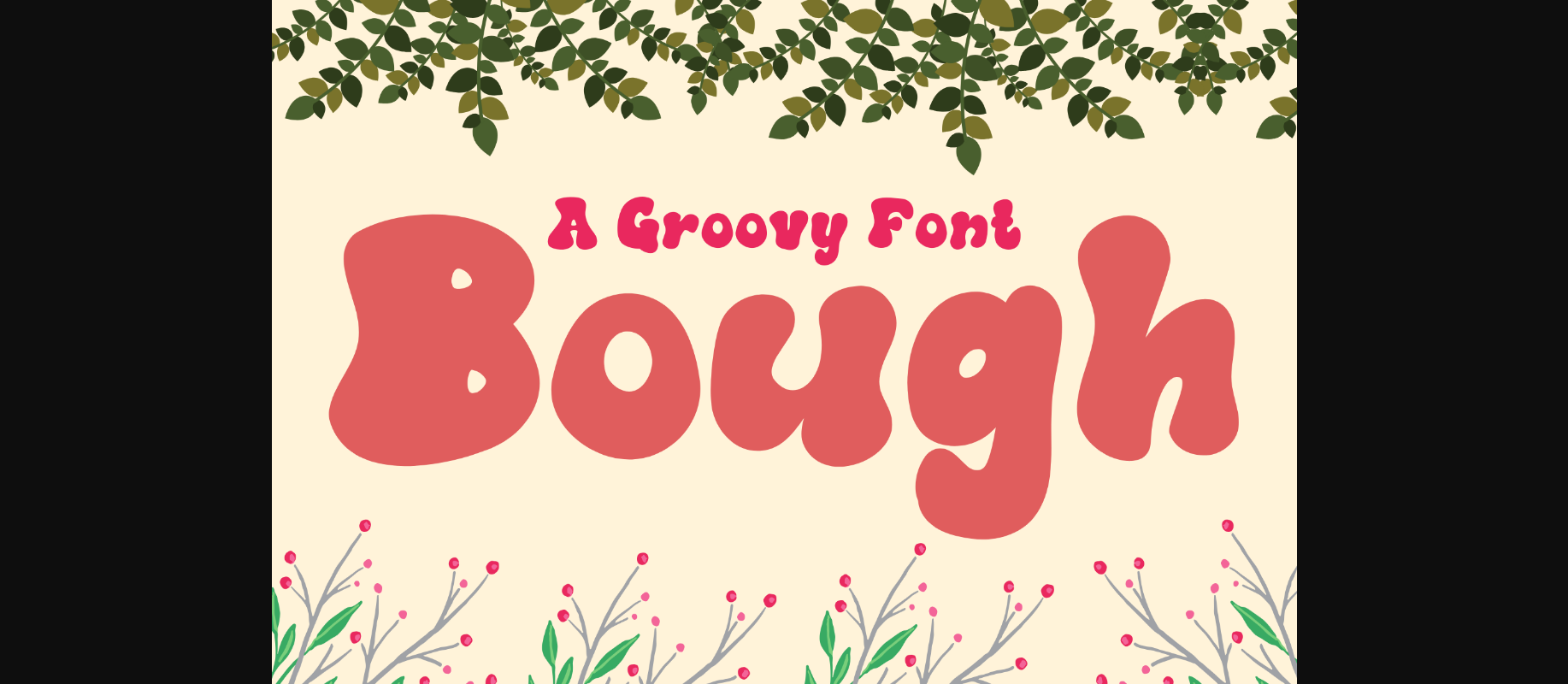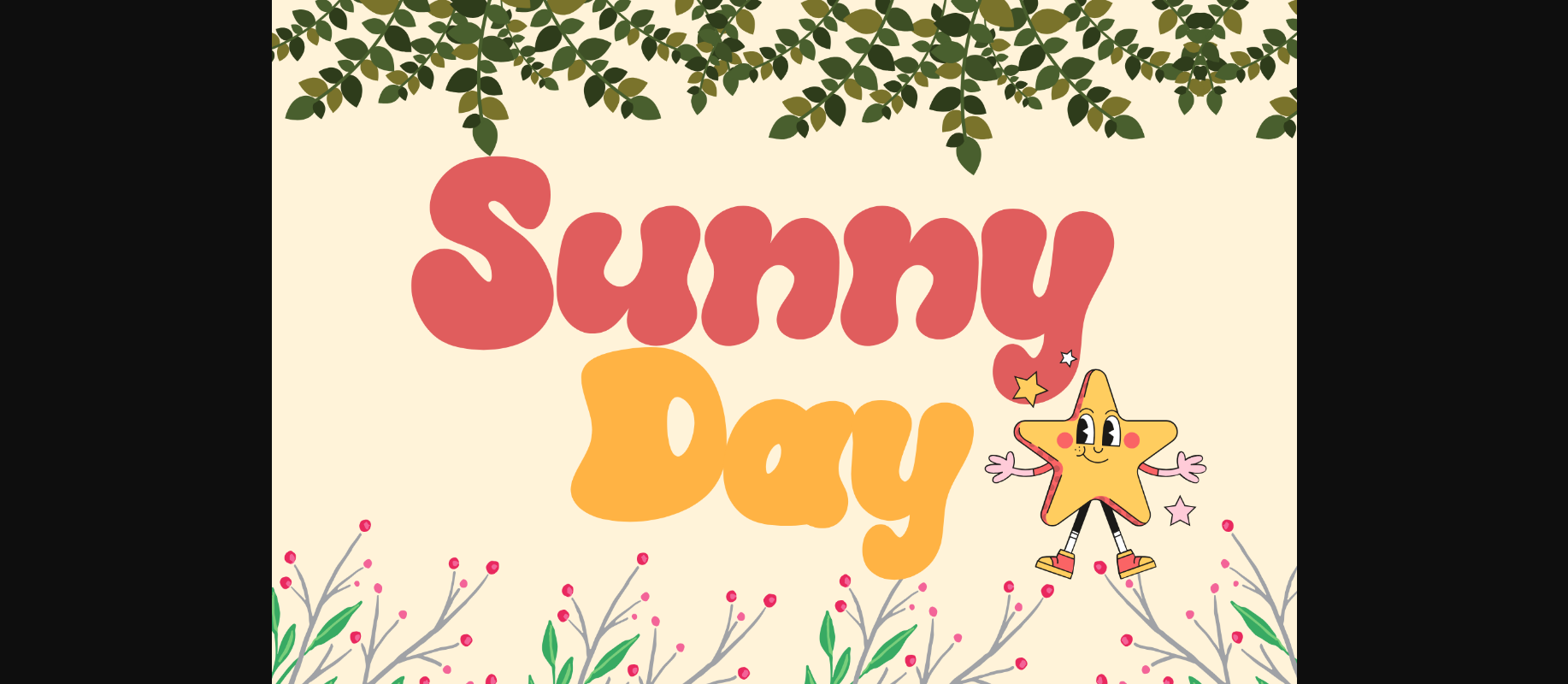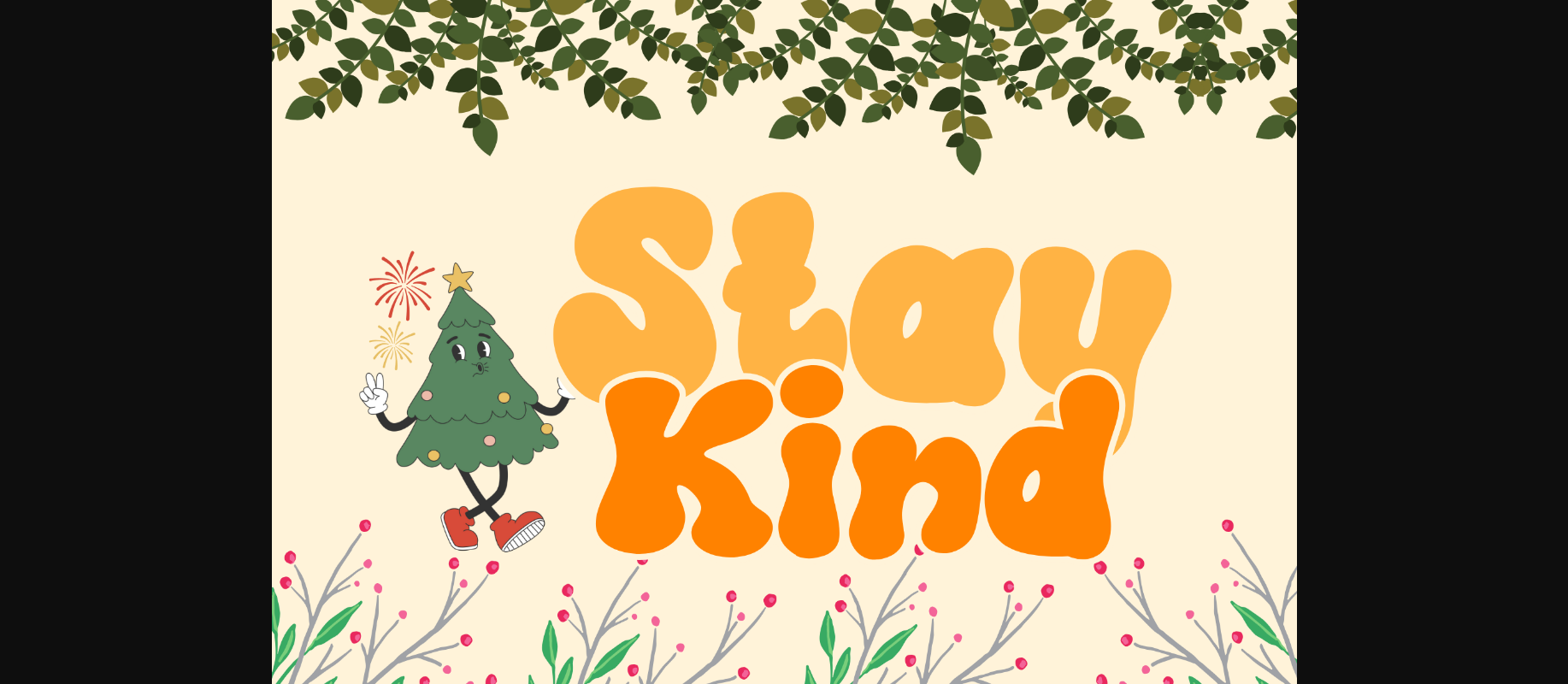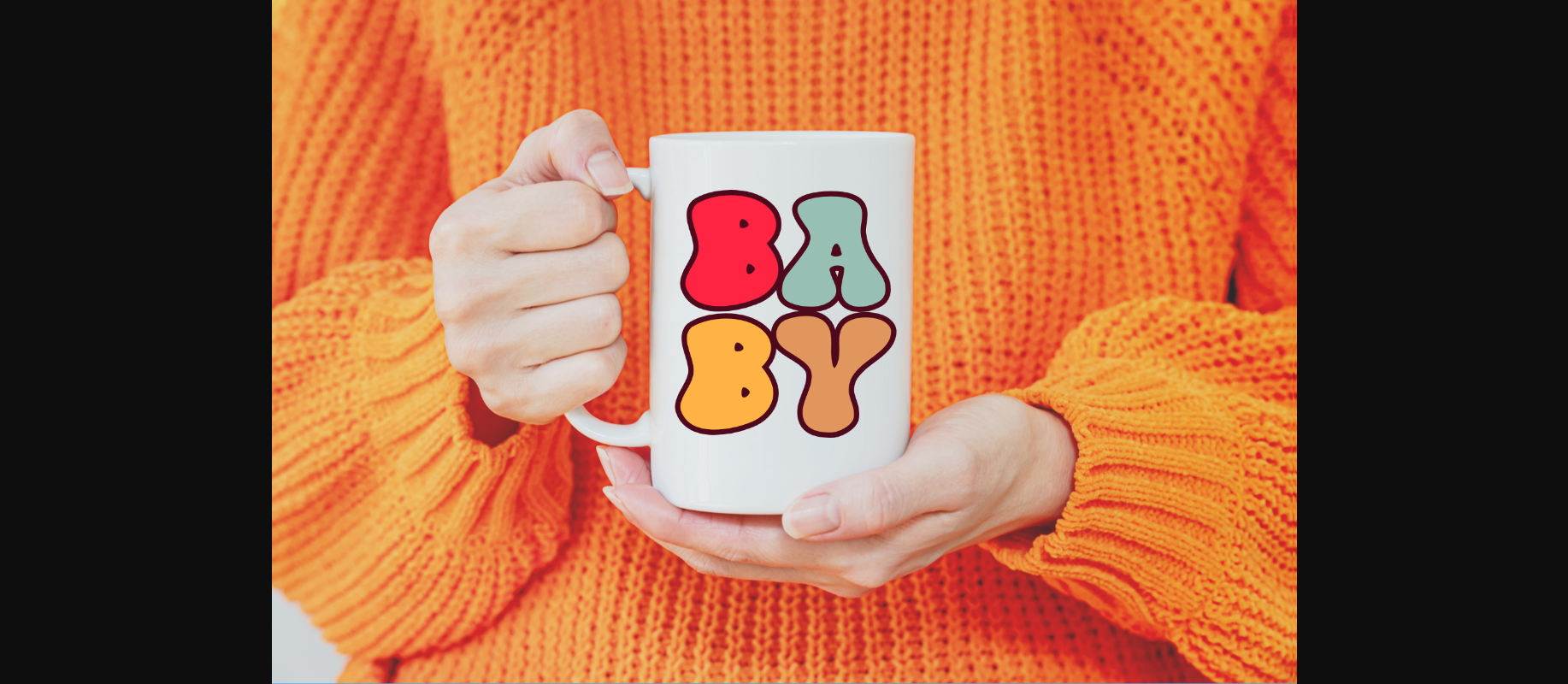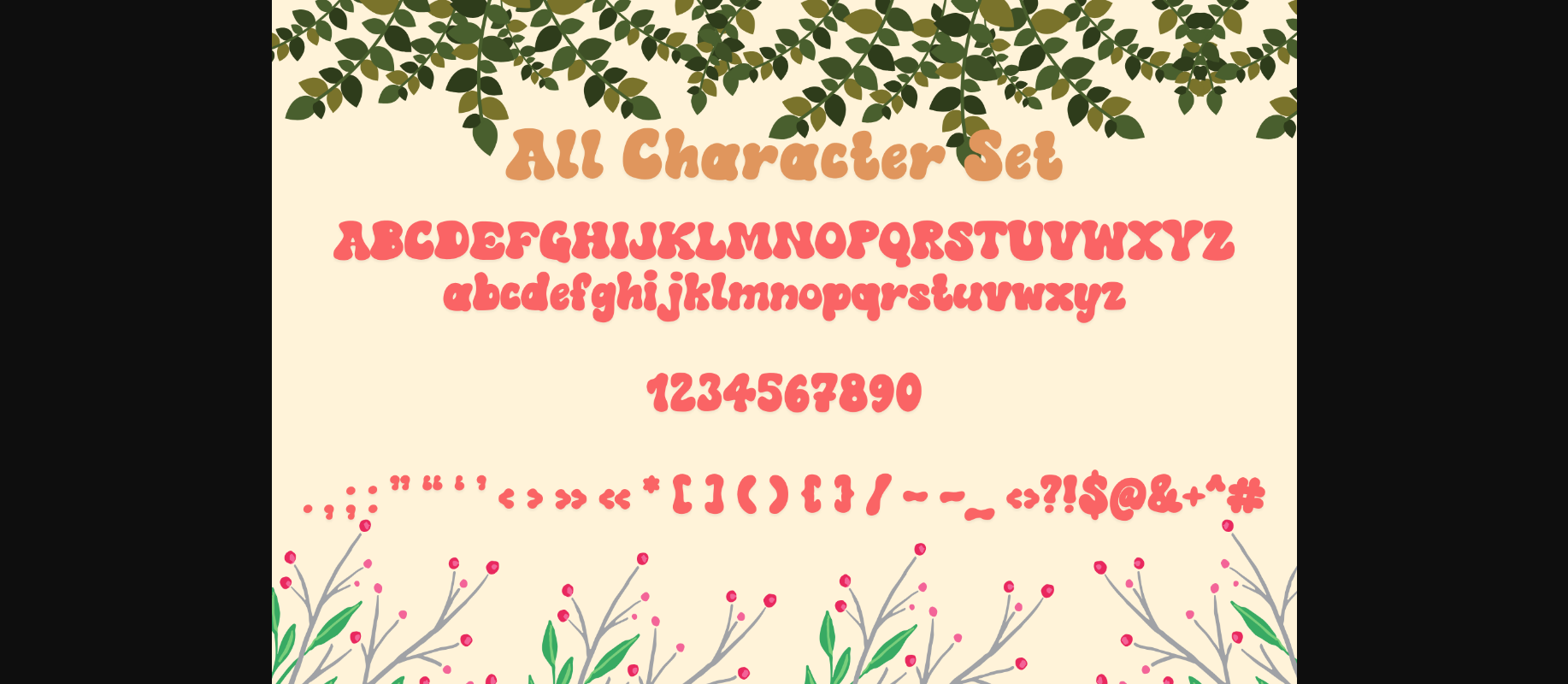
About Bough Font
Bough is a retro groovy display font. It embodies playfulness and authenticity and is the perfect choice for all your favorite projects such as blog posts, logos, branding, ads, invitations, greeting cards, planners, photo albums, decorations, and more. Add it to any of your designs, and enjoy the results!